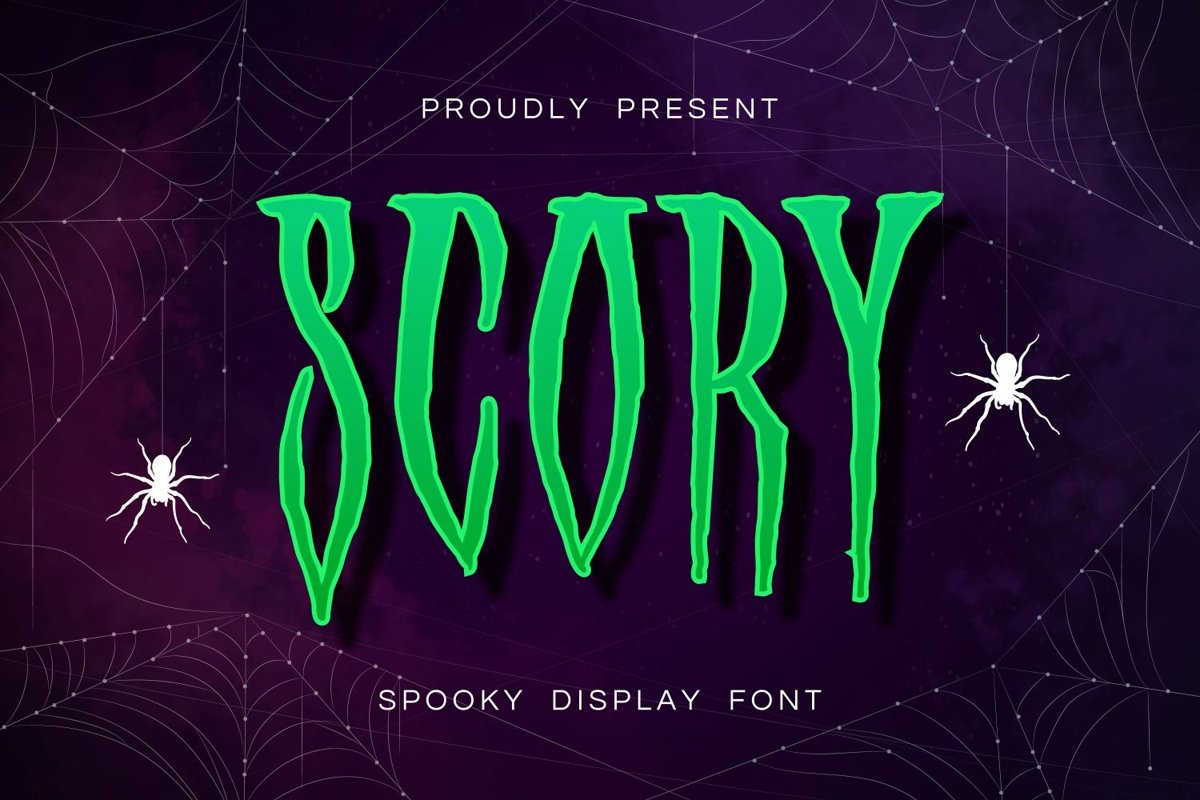
Scory is sans serif display come with spooky themes. It is the perfect font for the scariest time of the year. It matches applies in some designs such as the logotype, brand, packaging, quotes, poster, t-shirt, cover book, invitation and more custom design. The features uppercase, lowercase, numeral, punctuation & symbol, multilingual support.
Scory